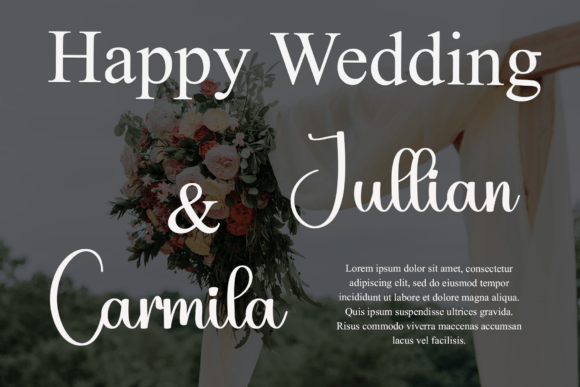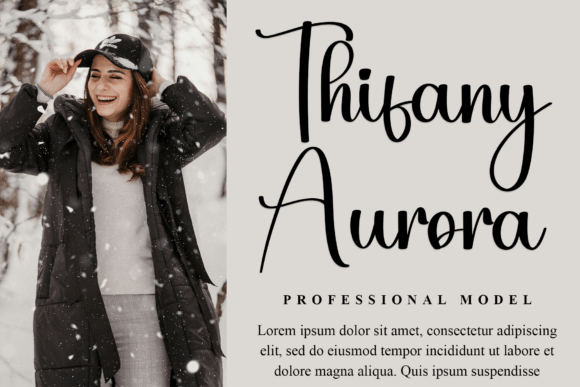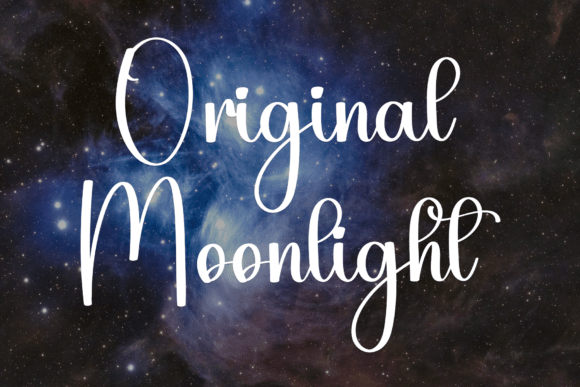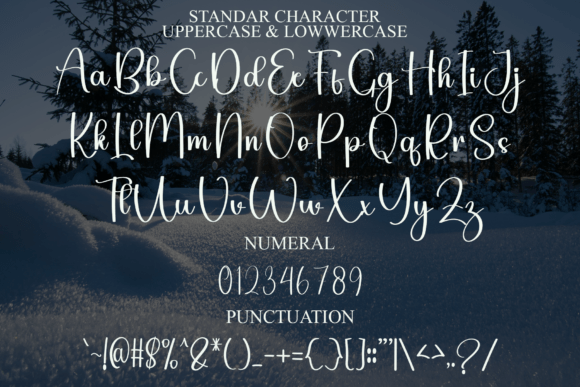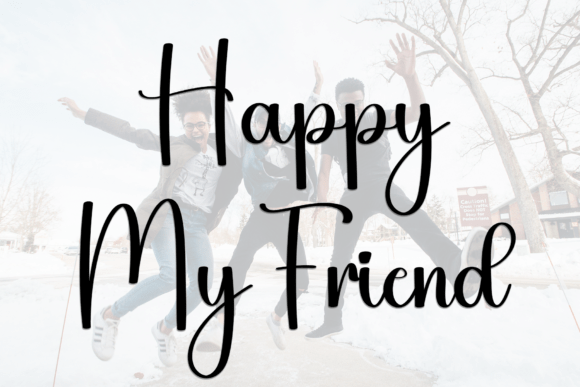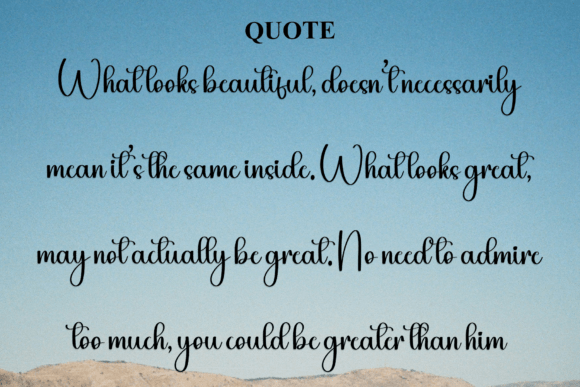
Introducing Butterfly Font: A Beautiful and Versatile Typeface
In the world of typography, a good font can make all the difference in a design project. If you’re a designer, crafter, or creative looking for a unique and eye-catching typeface, look no further than Butterfly Font. This stunning font is designed with a soft, unique touch that is sure to capture the attention of your audience.
The Distinctive Character of Butterfly Font
Butterfly Font is characterized by its distinctive strokes, which give it a special character that sets it apart from other fonts. Its unique design makes it meaningful and versatile, perfect for a wide range of creative projects. Whether you’re working on a design project, crafting a logo, or creating a work of art, Butterfly Font is the perfect choice.
A Wide Range of Characters
One of the standout features of Butterfly Font is its extensive range of characters. This font includes a variety of characters, making it perfect for use in a wide range of design projects. From crafting beautiful headings and titles to creating intricate designs and patterns, Butterfly Font has everything you need to bring your creative vision to life.
Butterfly Font is ideal for designers and crafters who want to add a touch of elegance and sophistication to their work. Its unique design and versatility make it perfect for use in a wide range of design projects, from logo creation and branding to crafting and scrapbooking. Whether you’re a professional designer or a hobbyist crafter, Butterfly Font is the perfect choice for anyone looking to add a little extra something to their work.
Enhance Your Designs with Butterfly Font
With Butterfly Font, you can enhance your designs and make them more appealing to a wide range of audiences. Its unique and eye-catching design makes it perfect for use in a variety of different artistic and creative fields, from graphic design and branding to crafting and scrapbooking. Whether you’re looking to create a stunning logo, a beautiful heading, or a intricate design, Butterfly Font is the perfect choice.
Why Choose Butterfly Font?
So why choose Butterfly Font for your next design project? Here are just a few reasons why this font stands out:
- Unique and eye-catching design: Butterfly Font has a distinctive and eye-catching design that is sure to capture the attention of your audience.
- Extensive range of characters: Butterfly Font includes a wide range of characters, making it perfect for use in a variety of different design projects.
- Perfect for designers and crafters: Butterfly Font is ideal for designers and crafters who want to add a touch of elegance and sophistication to their work.